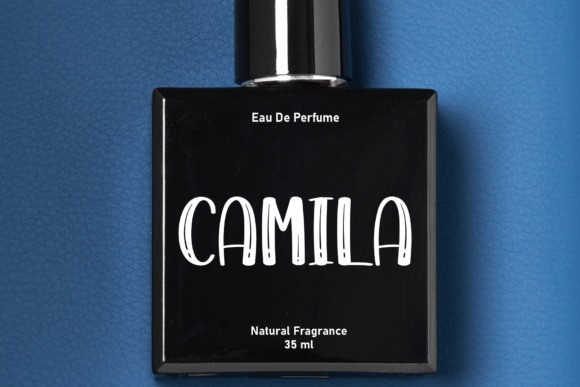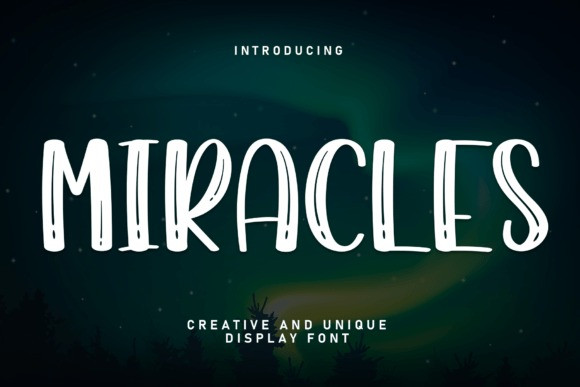
Miracles Font
Miracles Font is a lovely and timeless display font. It is the best choice for creating eye catching logos, branding and quotes. Every letter has a unique and beautiful touch, which will make your design come alive!